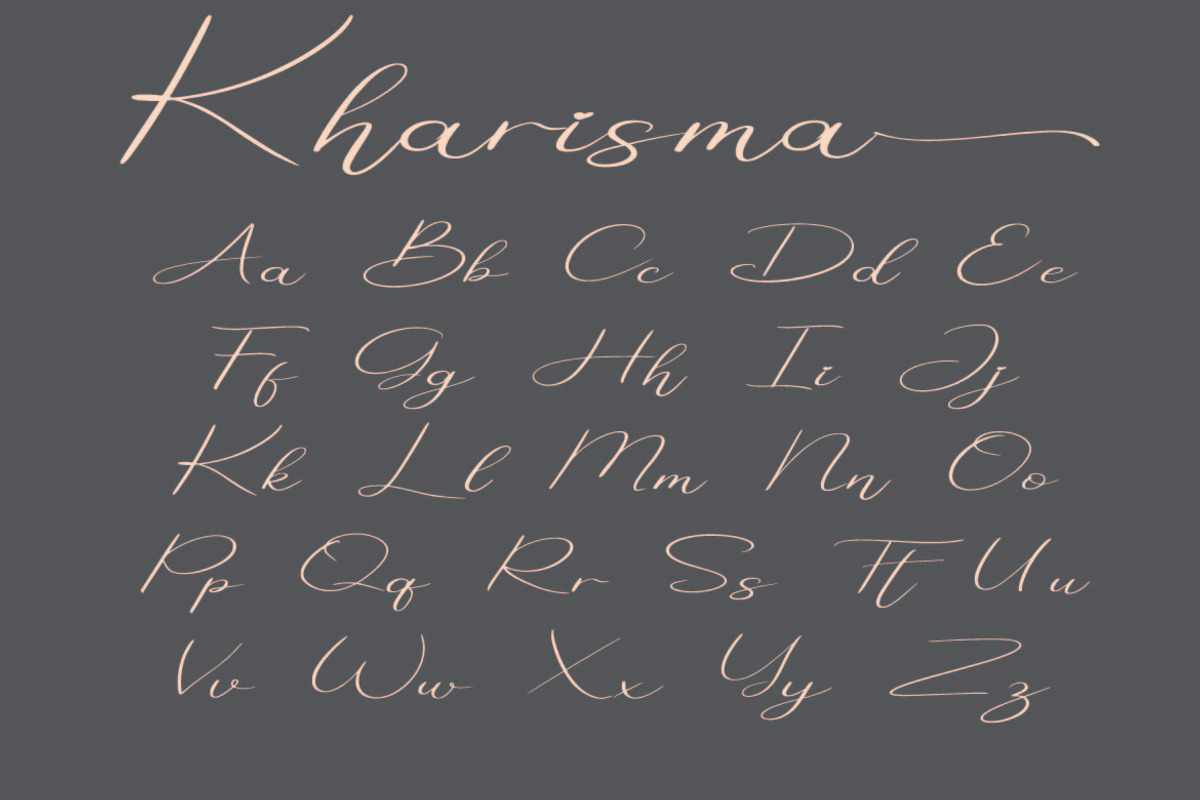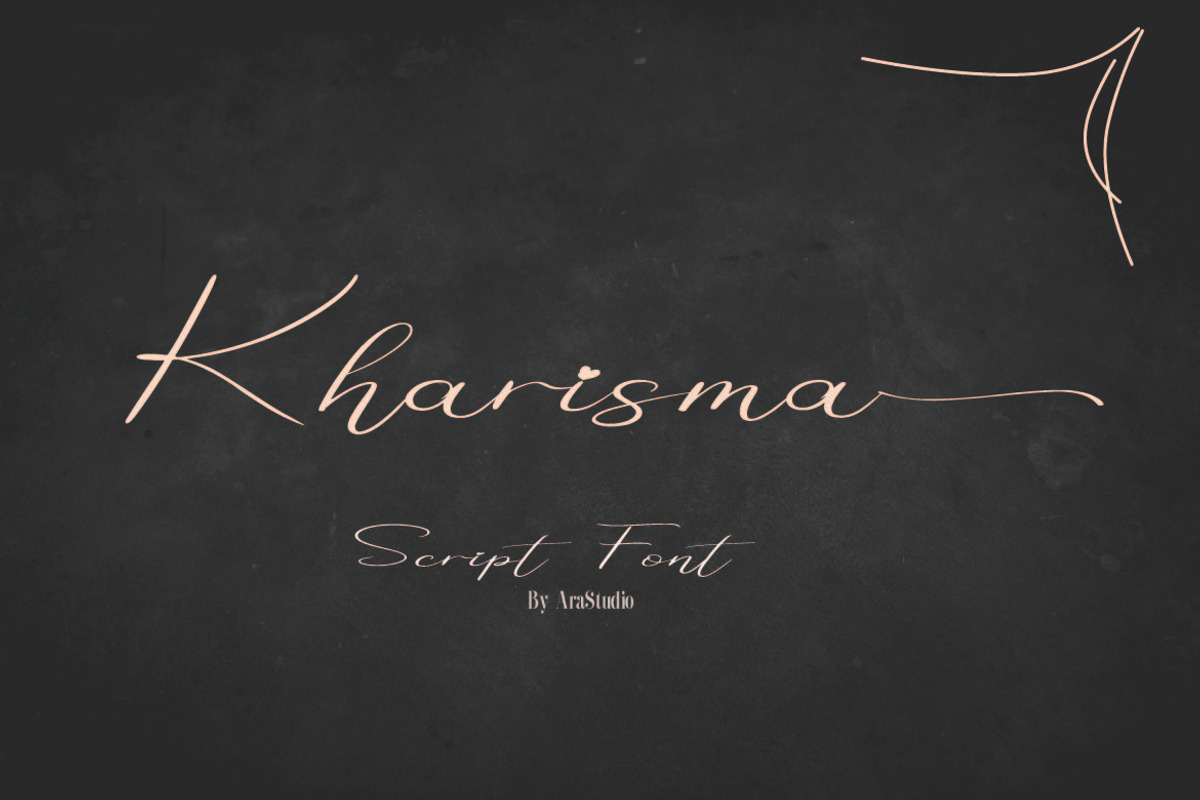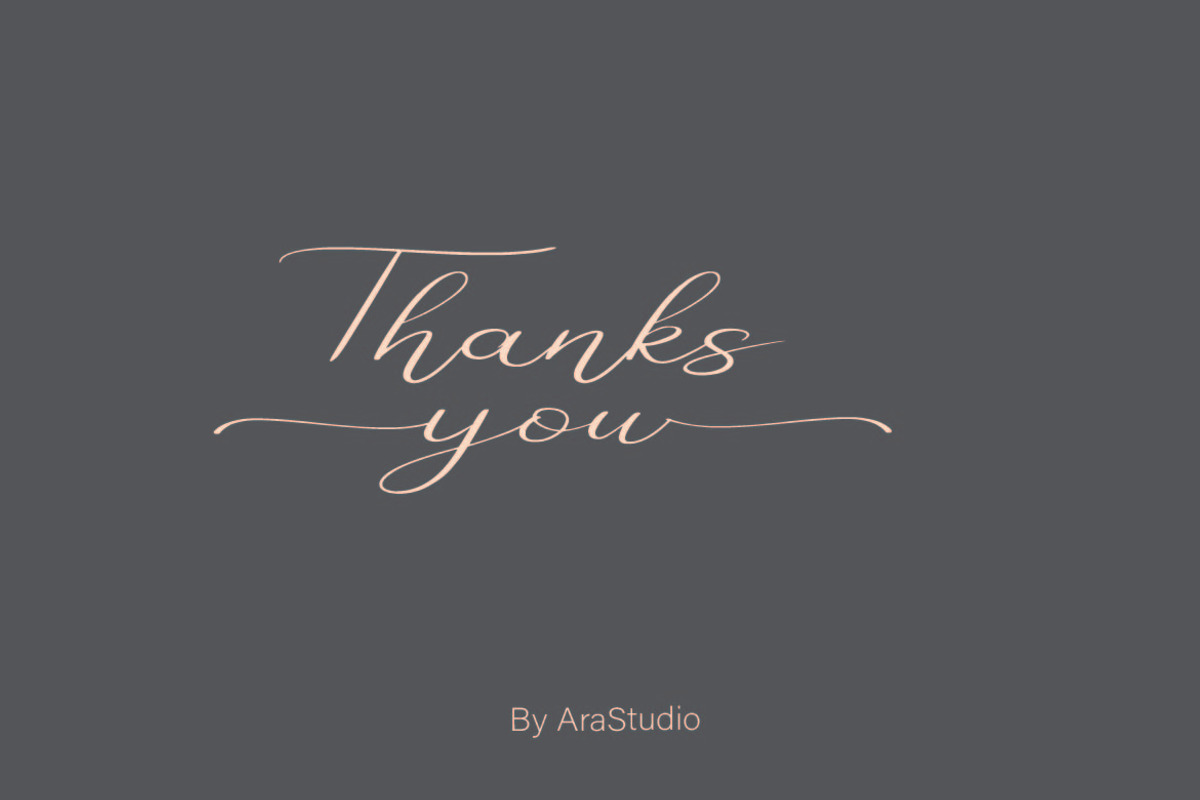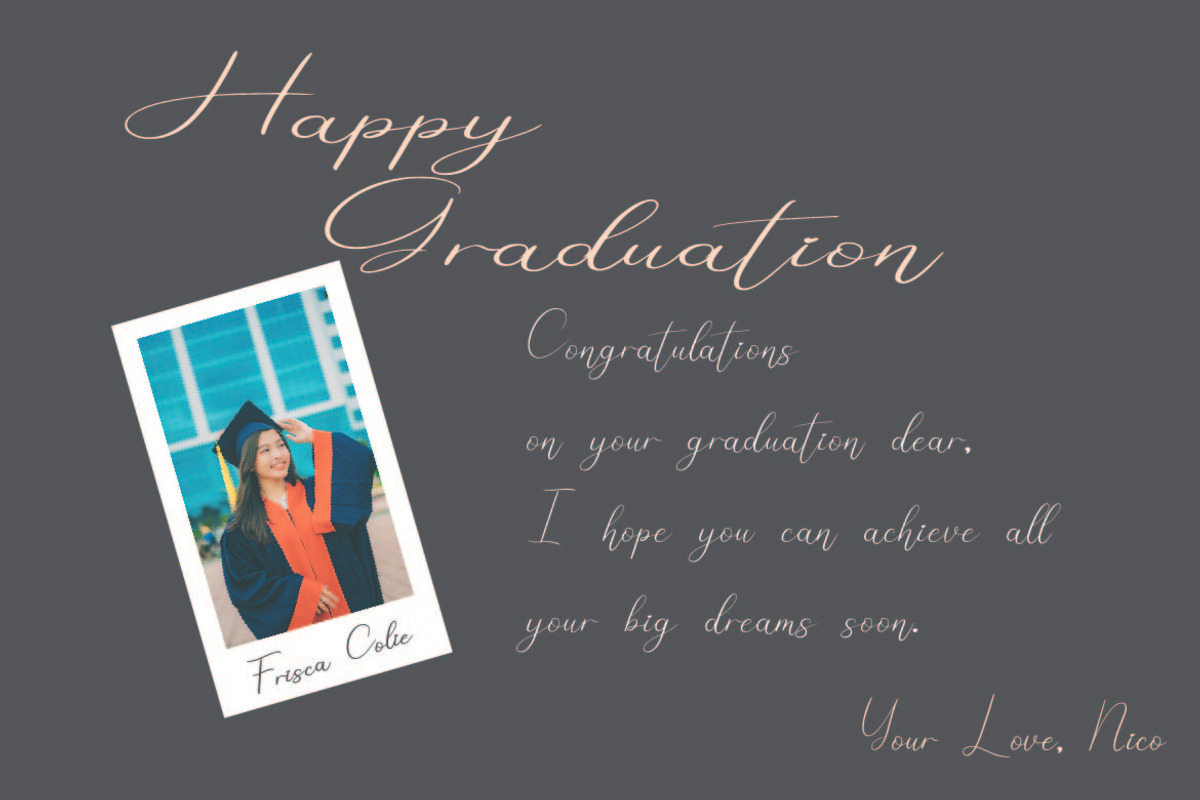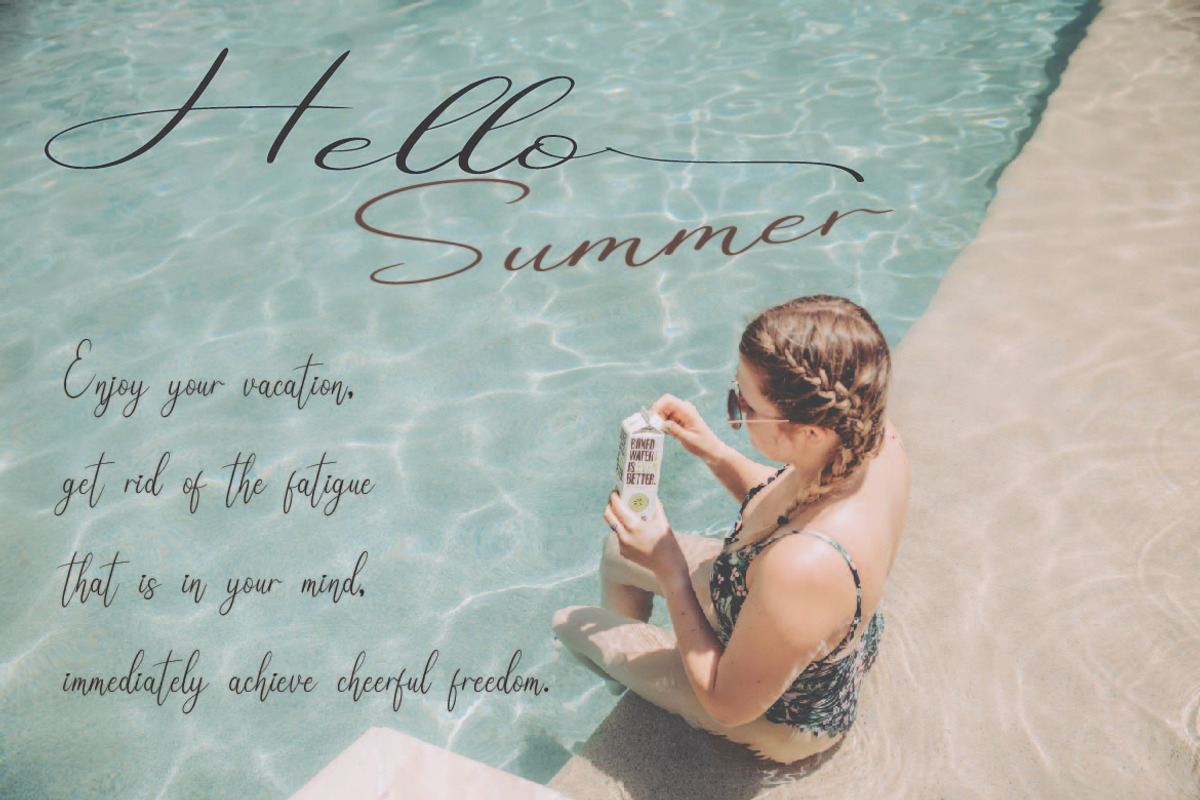
Kharisma
Kharisma is a modern calligraphy script perfect for wedding invitations, calligraphy logos for branding, elegant websites, personalizing gifts, social media posts, and anything else your heart desires!
Included with Kharisma is a full set of beginning and ending lowercase swashes, Ligature, to create a realistic handwritten calligraphy look for your designs.